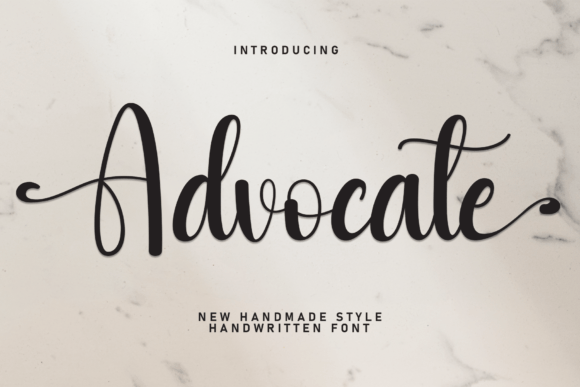
The Sweet and Friendly Advocate Font: A Designer’s New Best Friend
I’ll never forget the time I was working on a wedding invitation project, and my client asked for a font that was “fun, yet elegant.” I scoured the internet, tried out dozens of fonts, but nothing seemed quite right. That was until I stumbled upon the Advocate font. This sweet and friendly handwritten font has been a game-changer for my designs, and I’m excited to share it with you!
An Honest Review of Advocate Font
- ✨ Fresh and cute: Advocate font is perfect for adding a touch of whimsy to any design.
- ✅ Highly legible: Despite its playful nature, this font is surprisingly easy to read.
- 🎉 Versatile: Use it for wedding invitations, cards, or any other design that needs a fun touch.
While Advocate font is amazing, it’s not perfect. Here are a few things to keep in mind:
- 🤔 Limited character set: As a handwritten font, Advocate may not have all the characters you need for more complex designs.
- ⚠️ May not work well at small sizes: Like many script fonts, Advocate can get a bit lost at smaller font sizes.
The Backstory of Advocate Font
Advocate font was designed with love and care by a talented type designer who wanted to create a font that would bring joy and playfulness to designs. The font’s sweet and friendly nature makes it perfect for designs that need a personal touch.
Q: What is the best use for Advocate font?
A: Advocate font is perfect for designs that need a fun and playful touch, such as wedding invitations, cards, and other creative projects.
Q: Is Advocate font suitable for body text?
A: While Advocate font is highly legible, it’s best suited for headings and titles. For body text, you may want to choose a more traditional font.